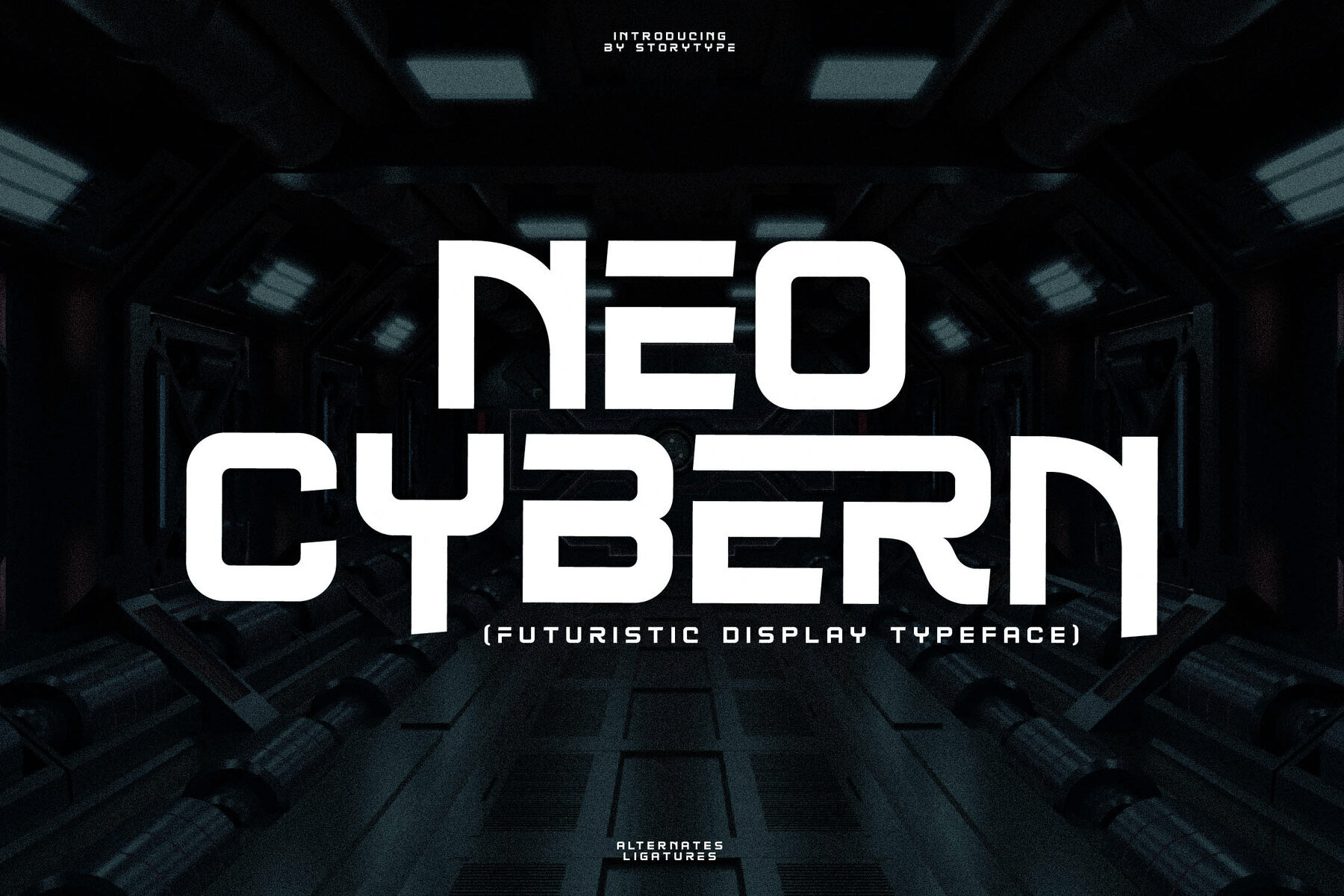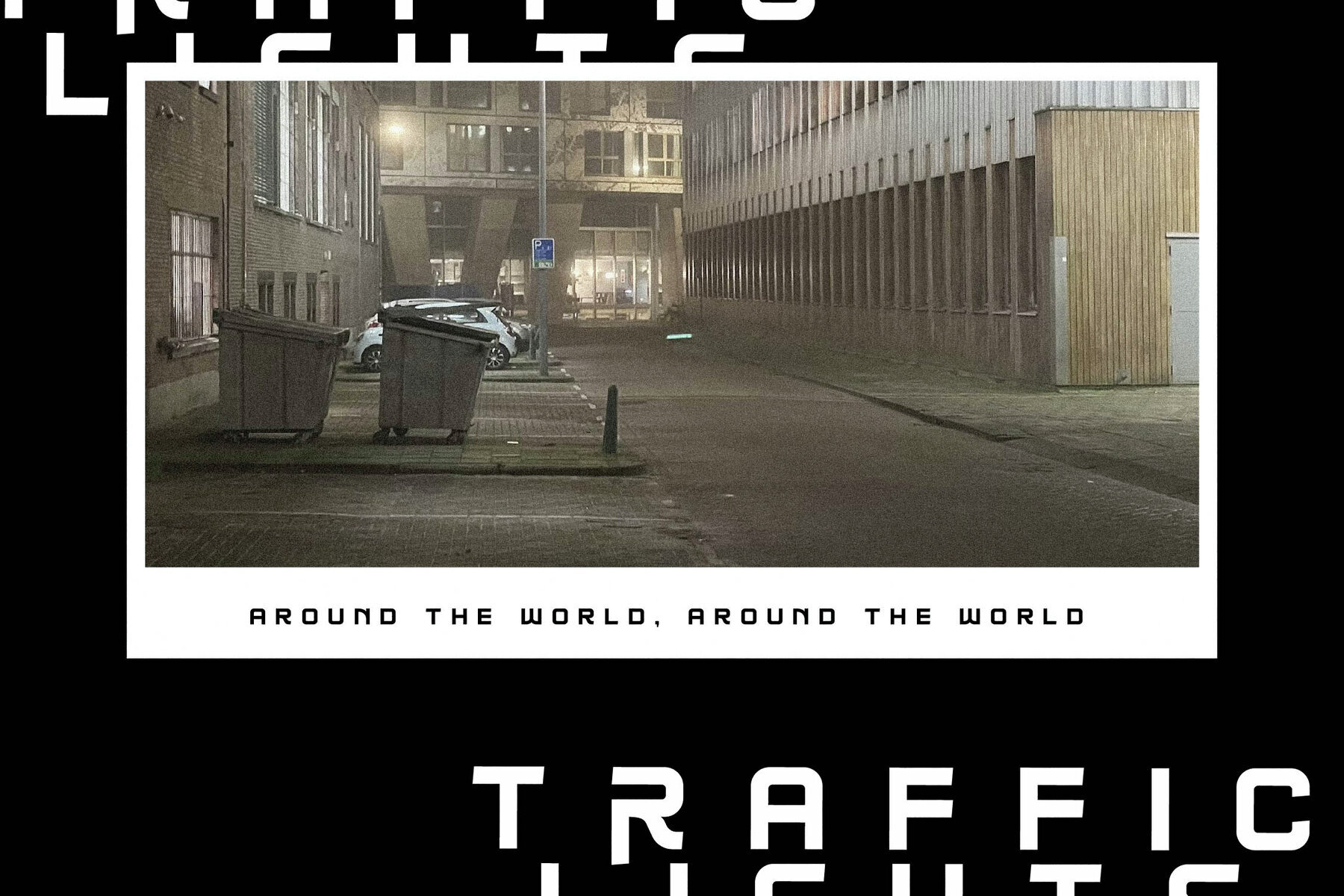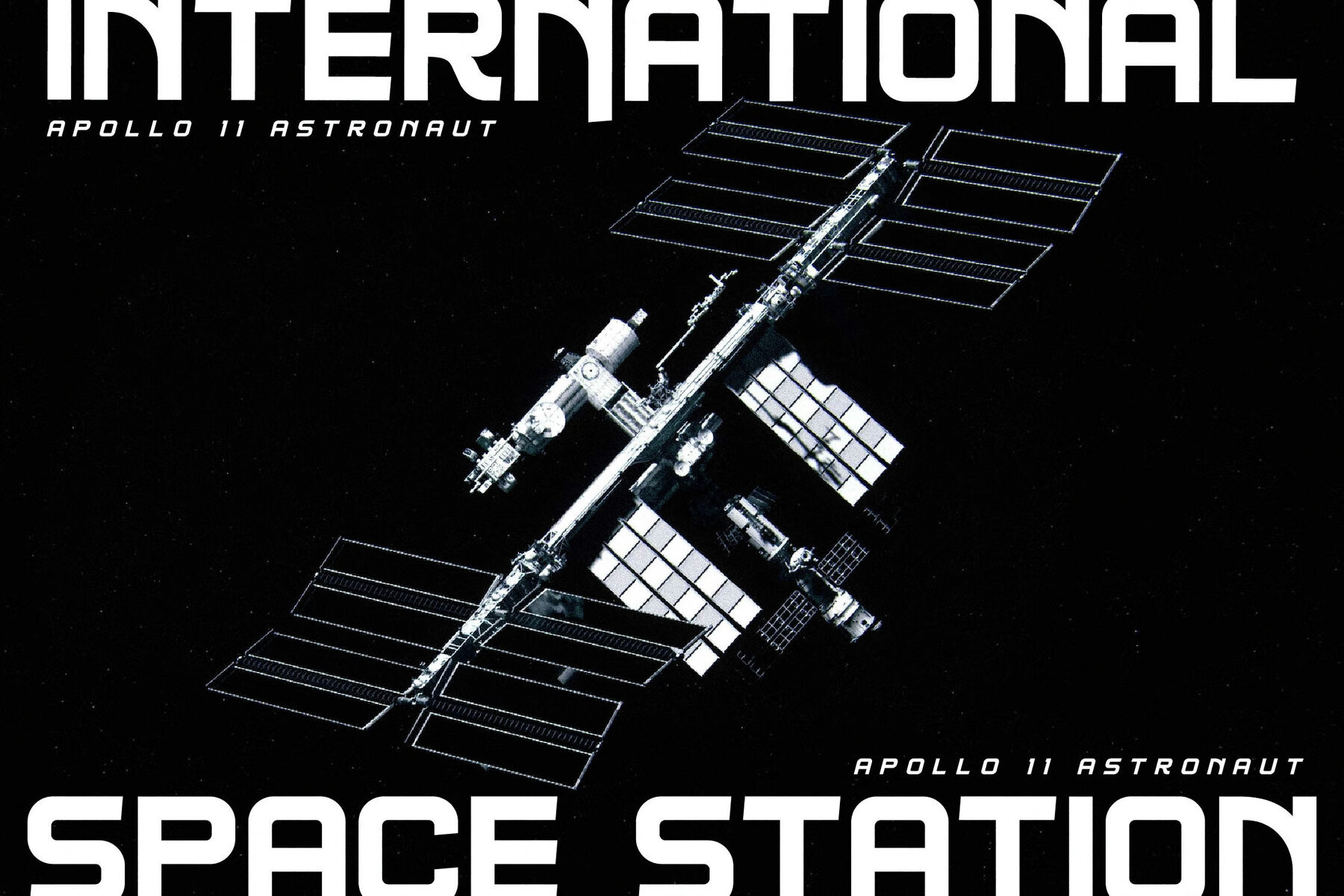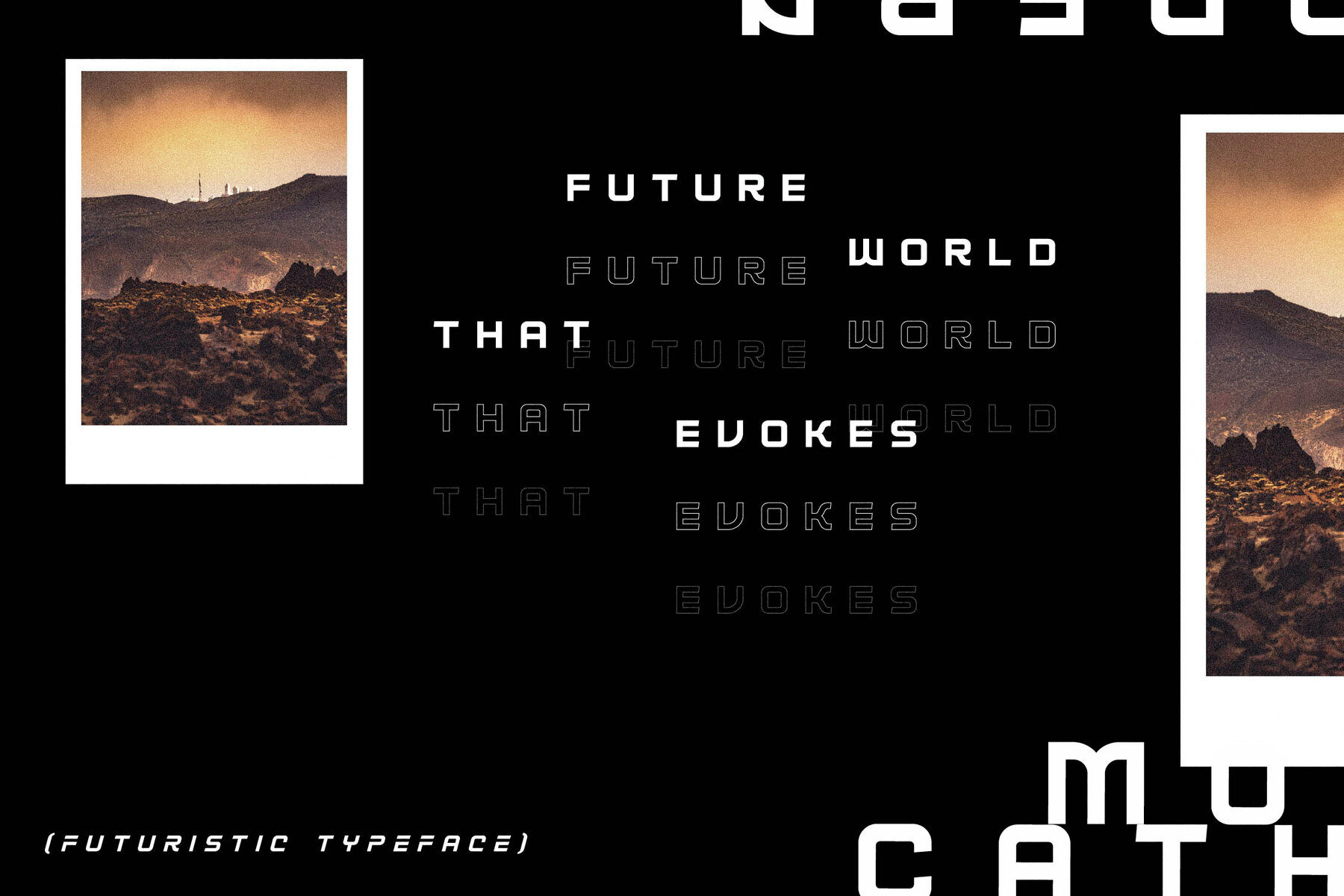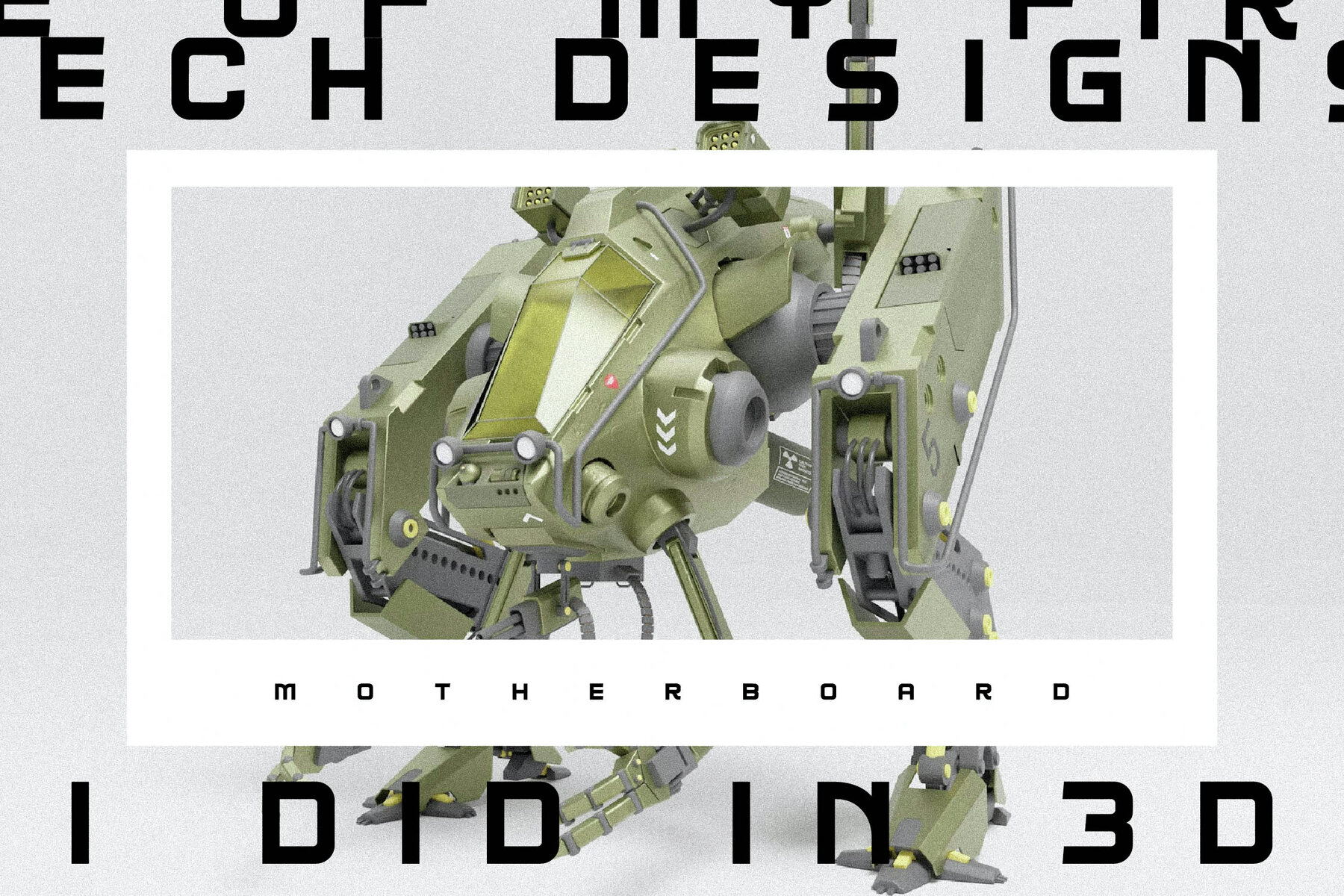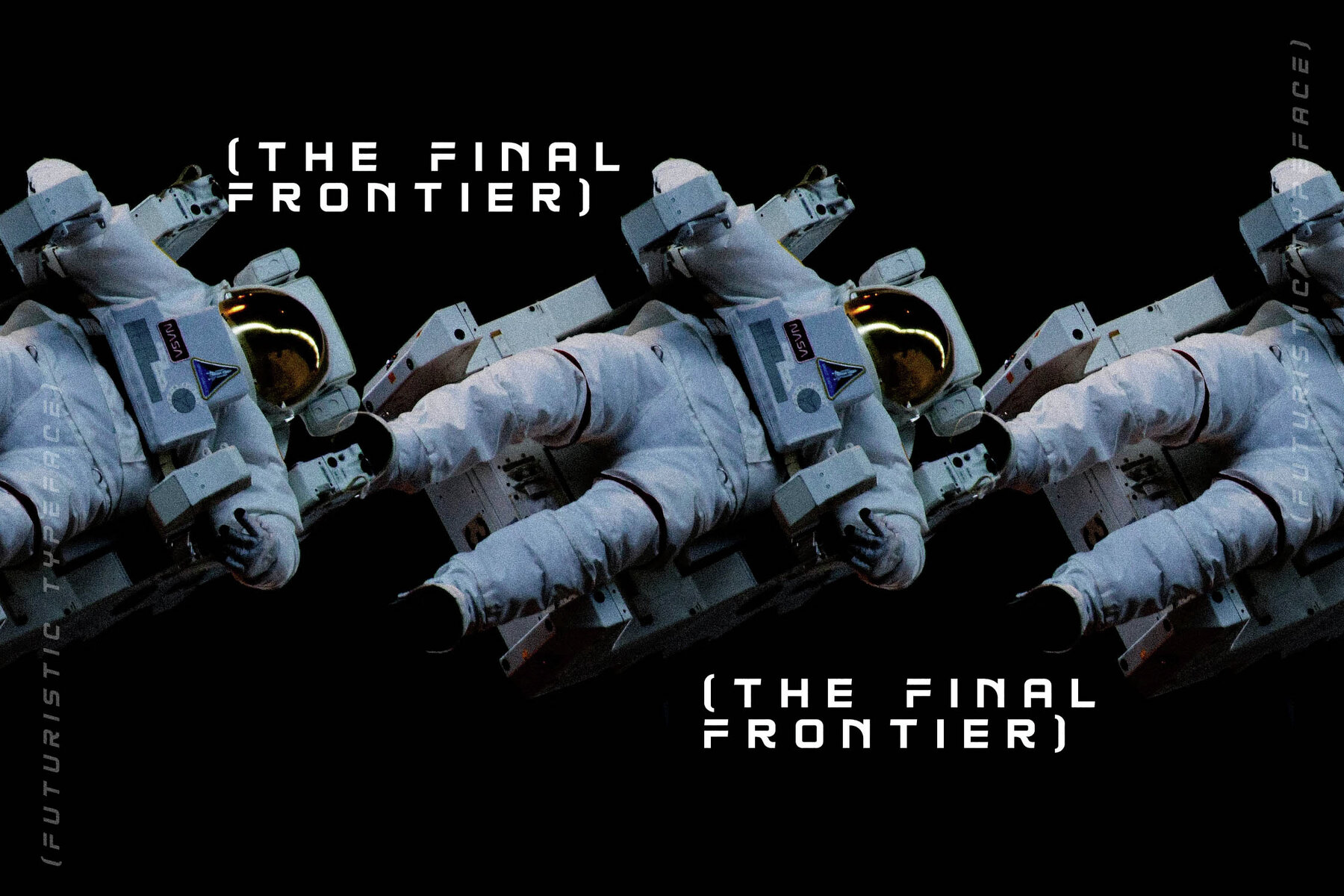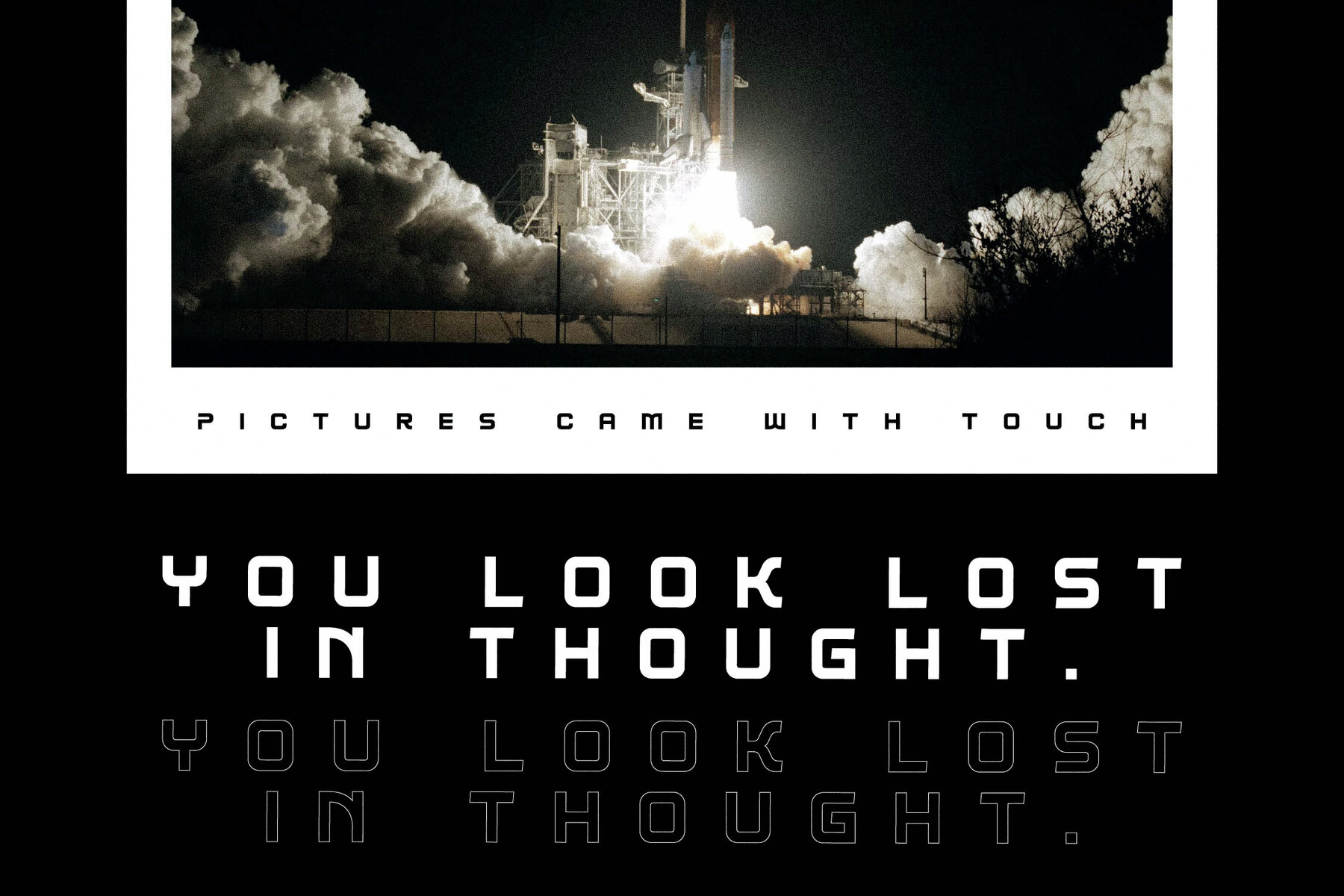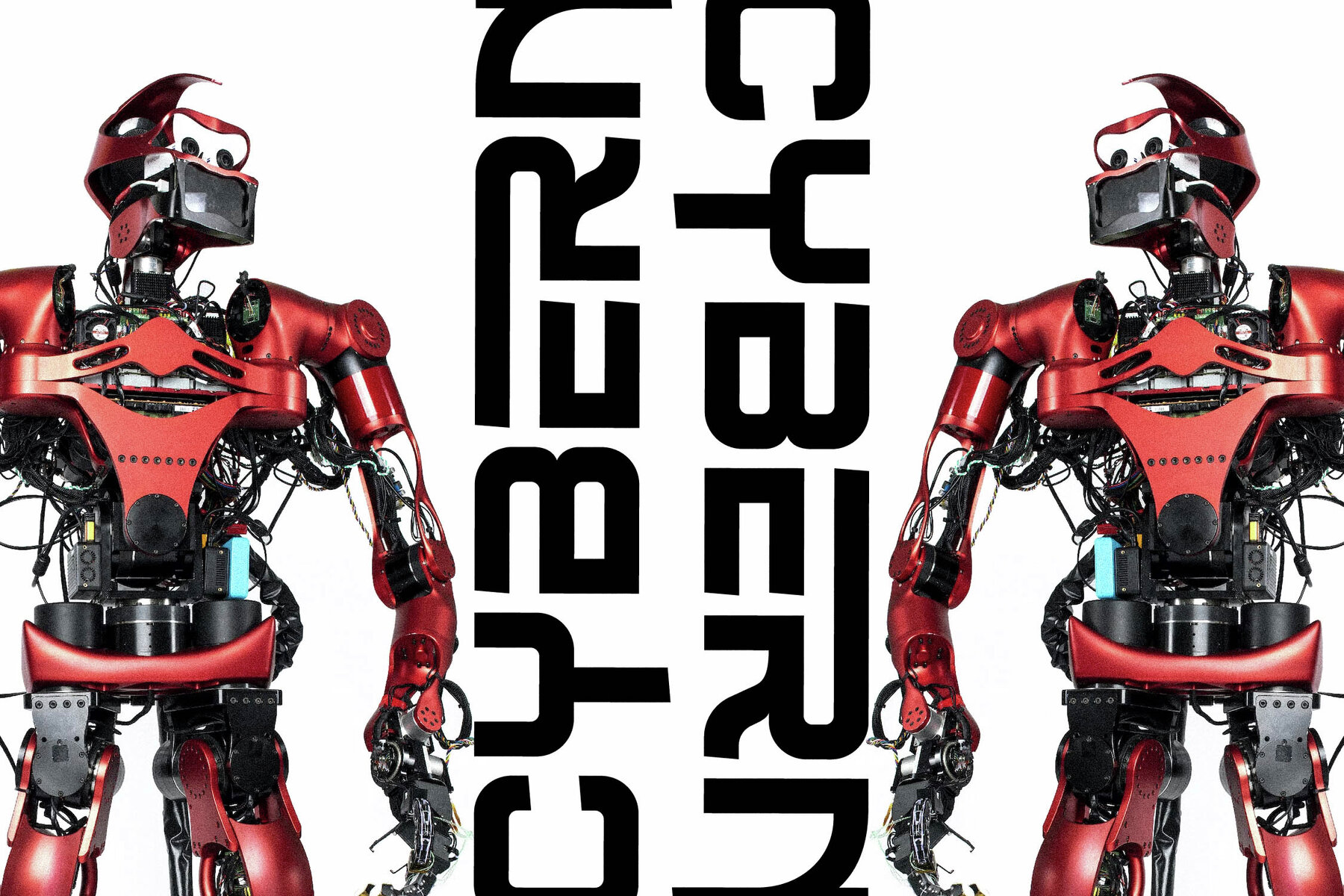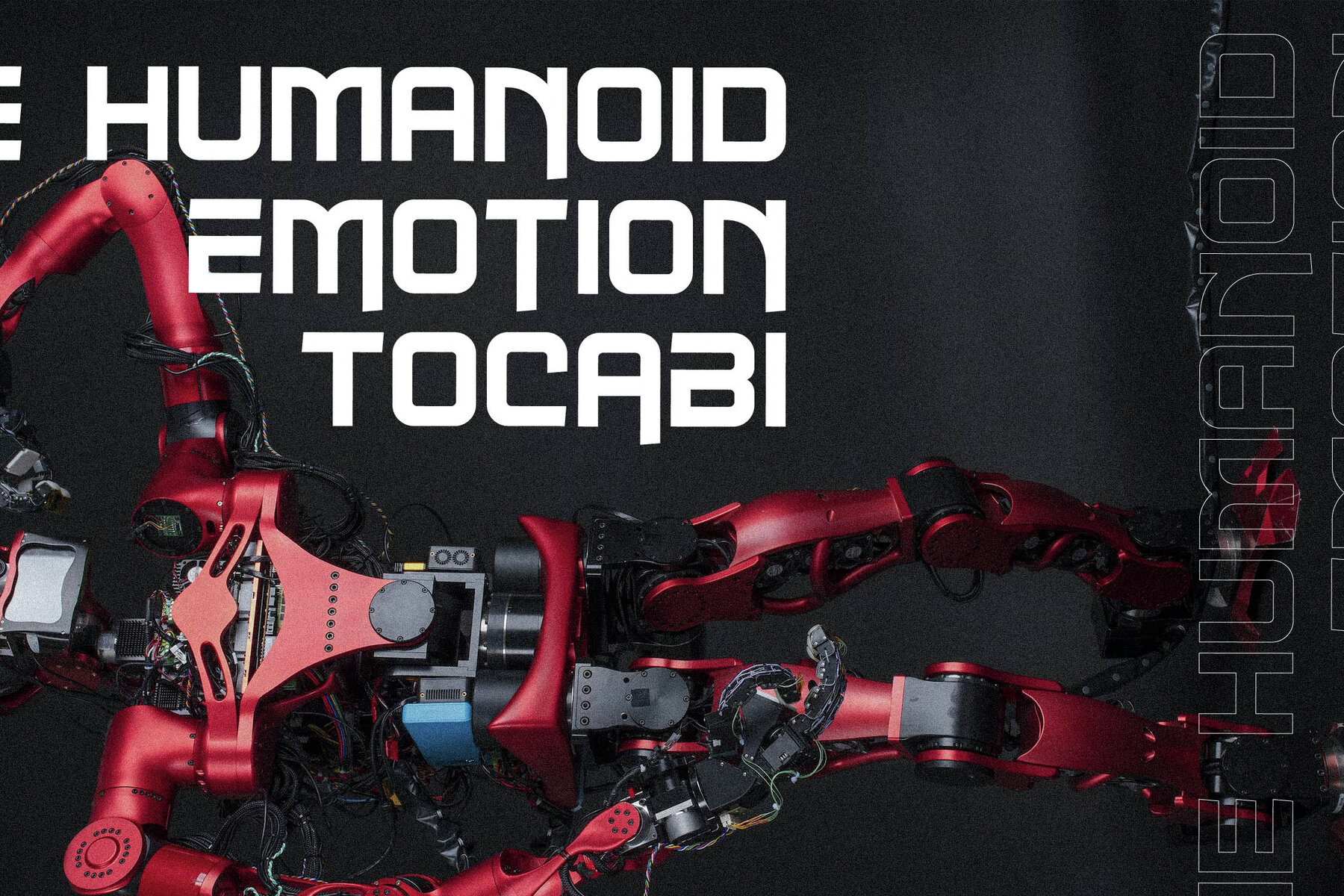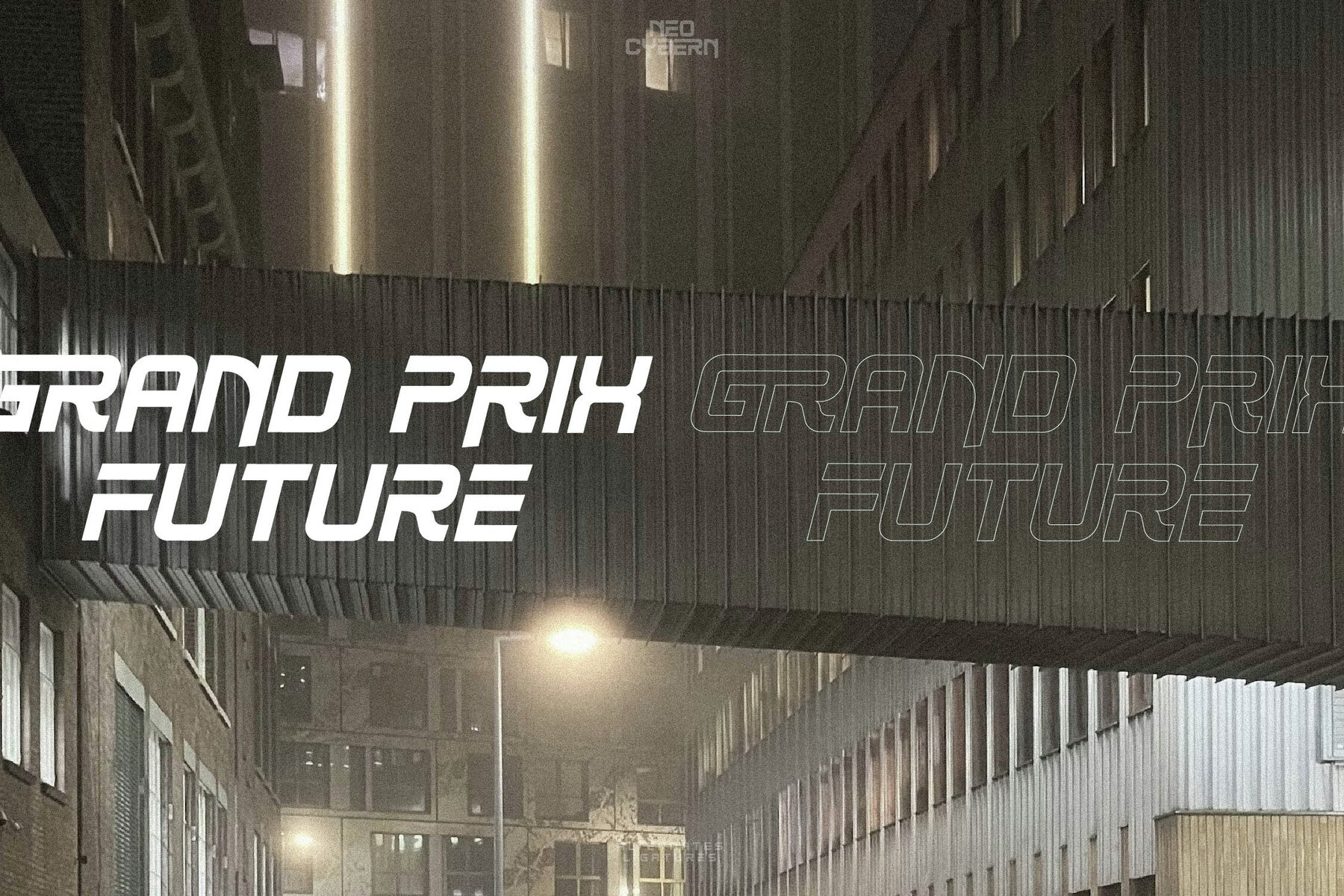
NEO CYBERN Font
Introducing the NEO CYBERN typeface by Storytype Studio. This modern and classic serif typeface boasts a unique style and contemporary appeal. Ideal for creating elegant and luxurious logos, book or movie titles, fashion branding, magazines, apparel, and more. Its versatility and charm make it a must-have for any designer's toolkit.NEO CYBERN Typeface